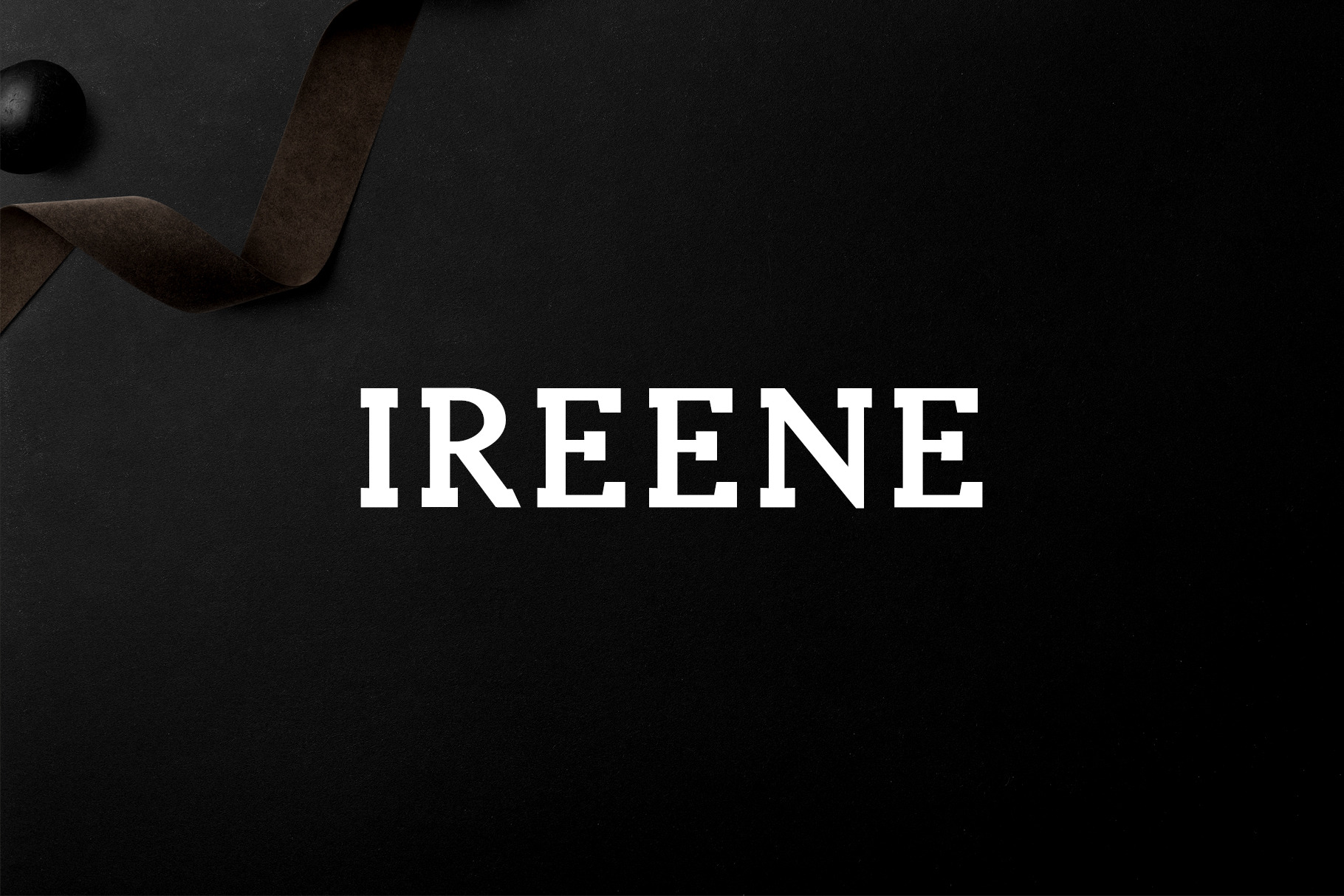
Ireene Serif 3 Font Family Pack
Ireene Serif 3 Font Family Pack features unique and modern serif look and feel. Perfect for gorgeous logos, titles, web layouts and branding. It looks gorgeous in all caps with a wide-set spacing if you want to try a classy look, or beautiful on its own in capital and lowercase letters for something completely timeless.